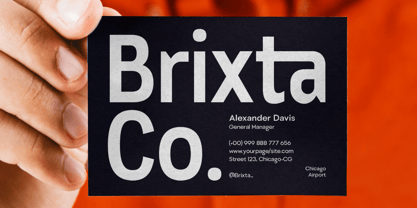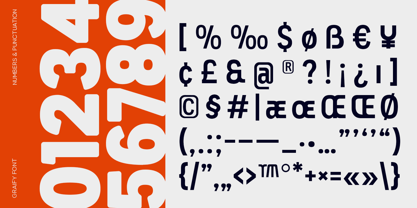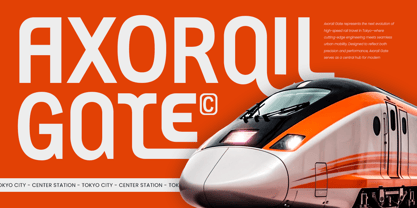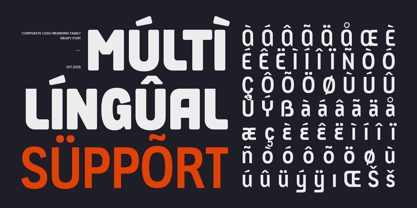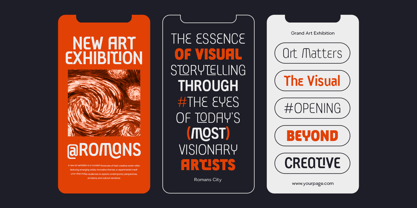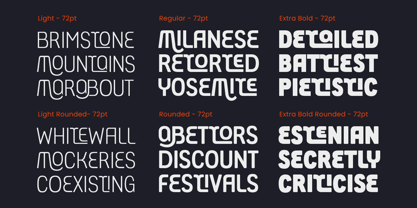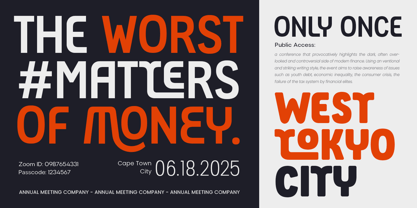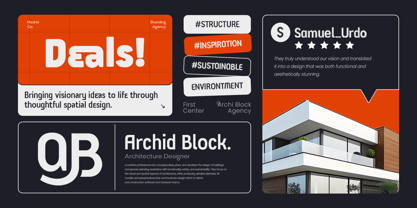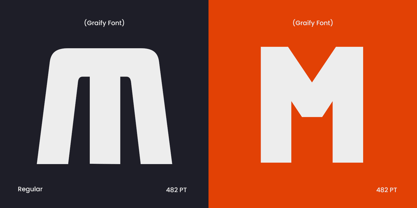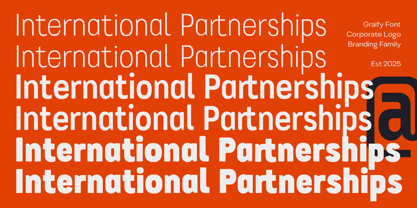
GRAIFY is a corporate logo branding font family created to deliver clarity, consistency, and professionalism in every design. Built with clean geometry and balanced proportions, this font family is ideal for corporate identity systems, modern branding needs, editorial layouts, and digital interfaces.
With multiple weights included, GRAIFY gives designers full flexibility—allowing bold, confident headlines and crisp, readable text to coexist in a unified brand system. Its refined shapes and minimal aesthetic make it a reliable choice for companies, startups, agencies, and businesses seeking a polished and trustworthy visual identity.
Whether you’re designing logos, websites, corporate presentations, packaging, or printed brand materials, GRAIFY provides the structure, elegance, and modern tone needed for cohesive, high-quality branding across platforms.
Features
Complete modern sans serif family with multiple weights
Perfect for logos, corporate identity, business branding, and editorial design
Clean geometric construction for professional and minimal aesthetics
Highly readable across digital and print applications
Ideal for tech companies, agencies, and contemporary brand systems
Uppercase, lowercase, numerals, and punctuation included
OpenType features for advanced typographic flexibility
Multilingual Support
Supports: Afrikaans, Albanian, Asu, Basque, Bemba, Bena, Breton, Chiga, Cornish, Dutch, English, Estonian, Filipino, Finnish, Friulian, Galician, German, Gusii, Indonesian, Irish, Italian, Kabuverdianu, Kalenjin, Kinyarwanda, Luo, Luxembourgish, Luyia, Machame, Makhuwa-Meetto, Makonde, Malagasy, Manx, Morisyen, North Ndebele, Nyankole, Oromo, Portuguese, Quechua, Romansh, Rombo, Rundi, Rwa, Samburu, Sango, Sangu, Scottish Gaelic, Sena, Shambala, Shona, Soga, Somali, Spanish, Swahili, Swedish, Swiss, and more.
Build a strong, modern, and cohesive identity with GRAIFY – the ultimate corporate font family for clean, professional branding. ✨